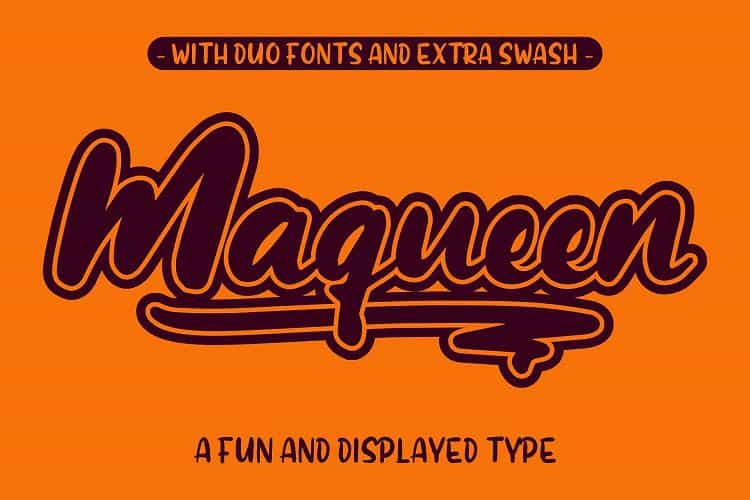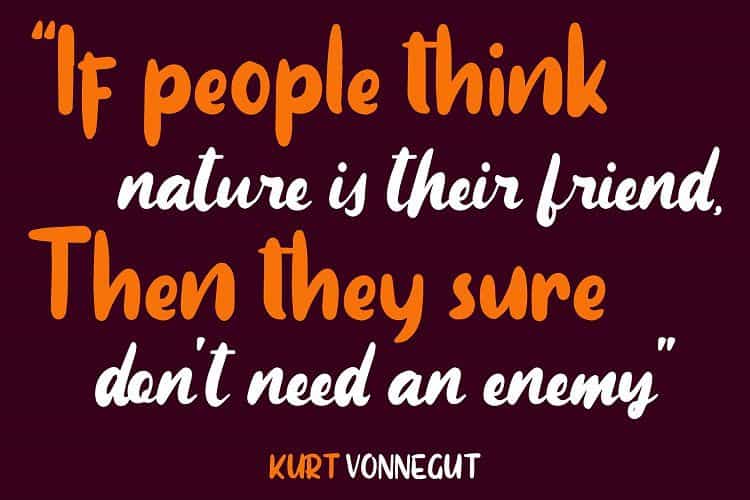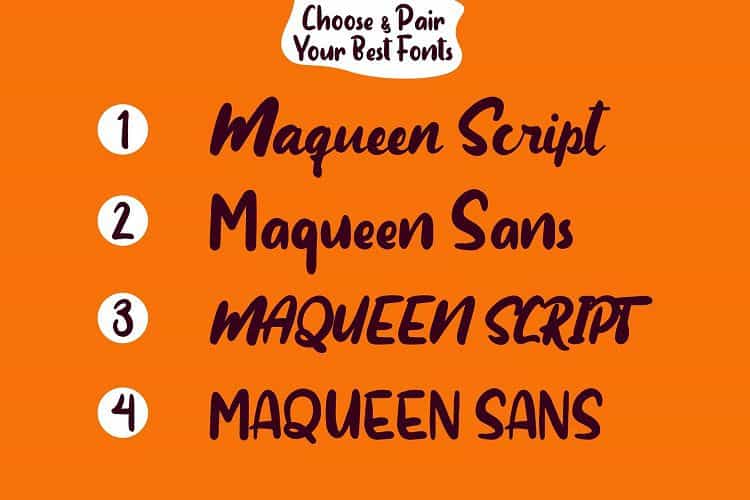
Discover Maqueen Display Font, part of the Brush Display collection—a versatile and unique font perfect for adding a personal touch to your projects. Download it for free and enjoy crafting designs with style, from invitations to social media posts. This font is available exclusively for personal use, giving you the freedom to create without limits. Unlock your creativity with Maqueen Display Font today!
Introducing Maqueen Font. Garisman Std. created and shared by Maqueen. Maqueen is a friendship family of display fonts which are rounded and intended for fun and kids stuff. The Fonts duo is made up of two styles; Display Sans and Semi Script, which are meant to be used together.